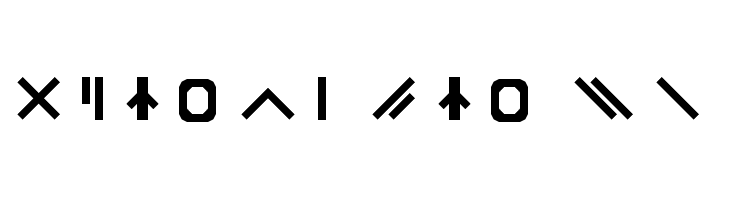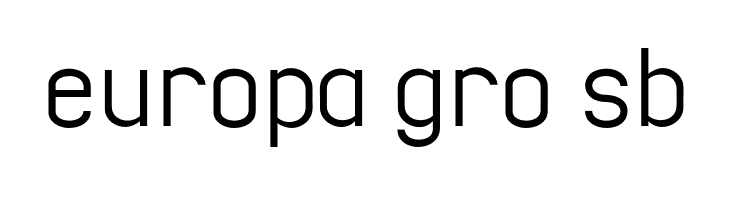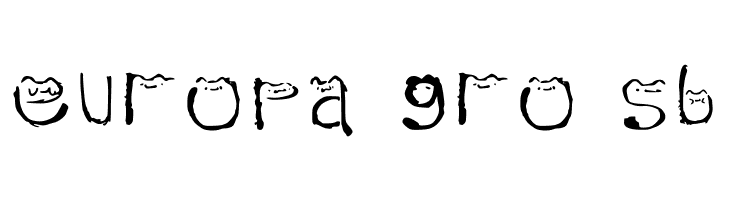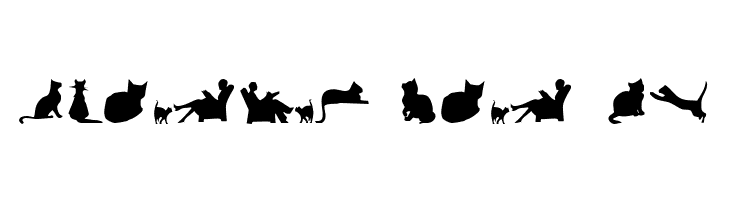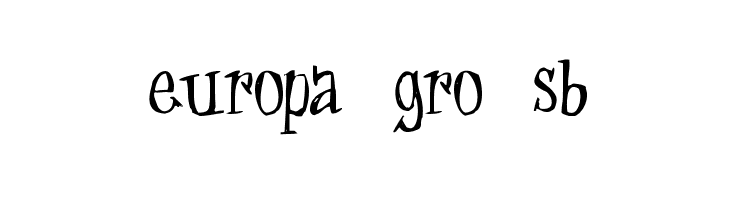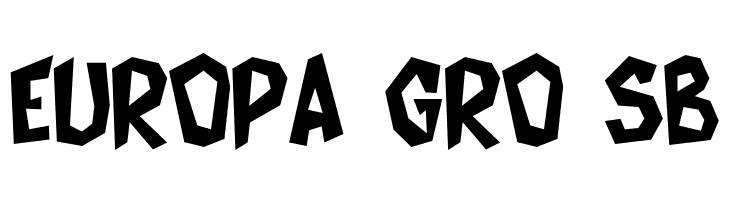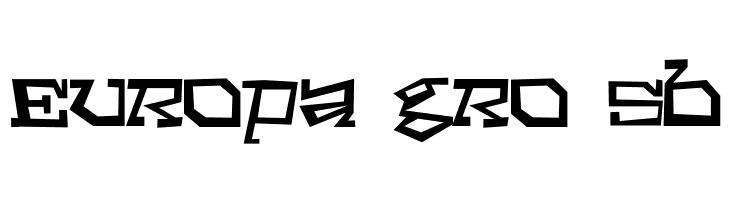
A whimsical font with cat face motifs and a playful, hand-drawn style.
A modern, geometric sans-serif font with excellent legibility and versatility.
A bold, angular font with sharp, jagged lines and a dynamic, edgy appearance.
A display font made up of cat silhouette illustrations.
A dot matrix style font with a digital, retro aesthetic.
A geometric, abstract font with sharp angles and a futuristic look.